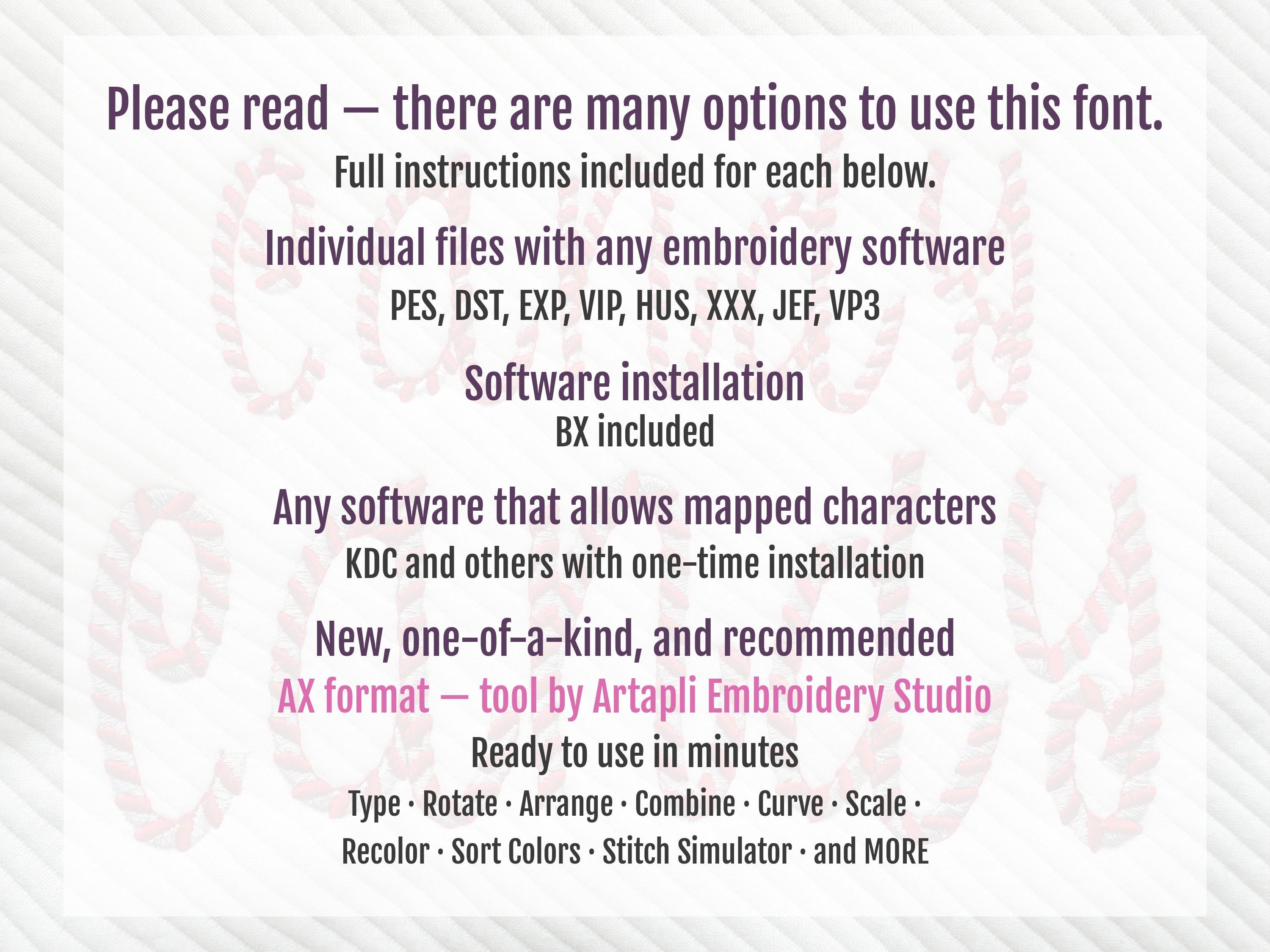
Christmas Candy Cane FONT candy stitch 2 colors alphabet letters numbers monogram machine embroidery designs sizes from 1.2 up to 3 inch, BX
The entire alphabet consists of uppercase and lowercase letters Aa-Zz same height, and numbers 0-9.